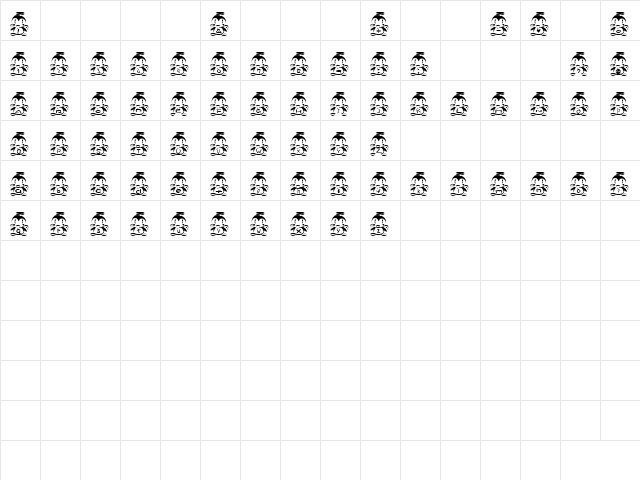
pen Font Regular
Design Context for pen Font Typeface
pen Font is a composed and adaptable typeface that performs quietly and consistently across a wide range of design contexts.